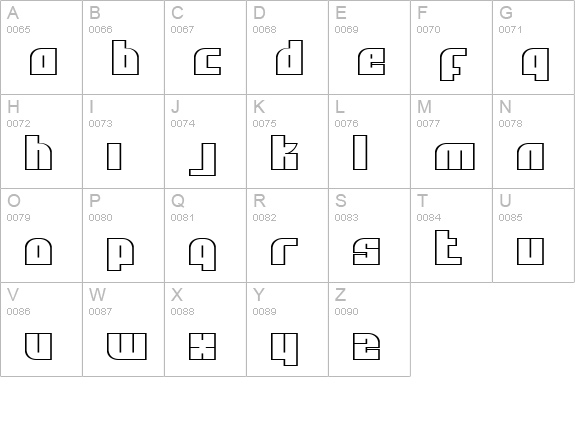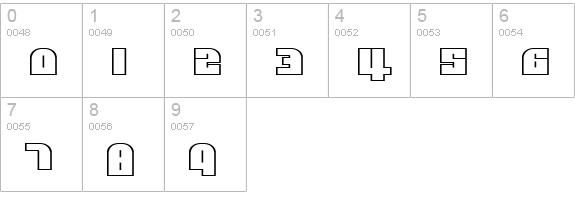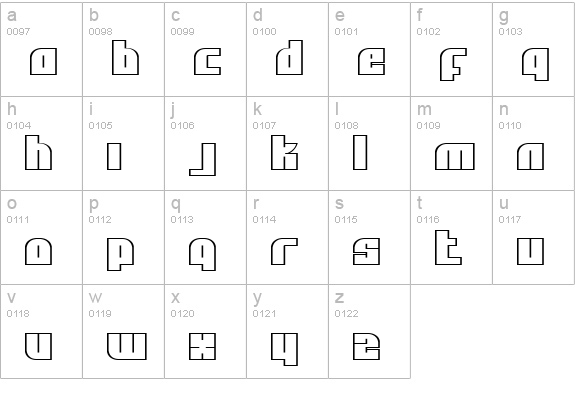
Alpha Flight font is a sleek and modern typeface that exudes a sense of strength and sophistication. With clean lines and a bold presence, this font is perfect for creating impactful designs that demand attention. Whether you are working on a poster, logo, or web design project, Alpha Flight font will elevate your work to the next level. The best part is that Alpha Flight font is available for free download at FontsMarket.com. Now you can add this versatile and stylish font to your collection without breaking the bank. Don't miss out on the opportunity to enhance your designs with the elegance and flair of Alpha Flight font. Download it today and start creating stunning visuals that leave a lasting impression.